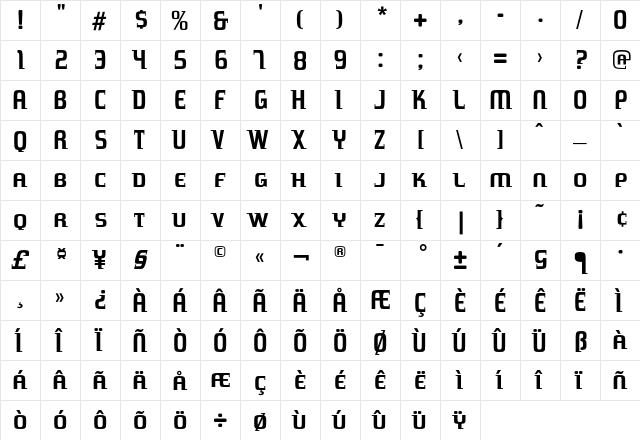
77London Regular
Design Context for 77London Typeface
77London takes a measured approach to typography — its balanced proportions and neutral character make it a reliable workhorse for both digital and print work.